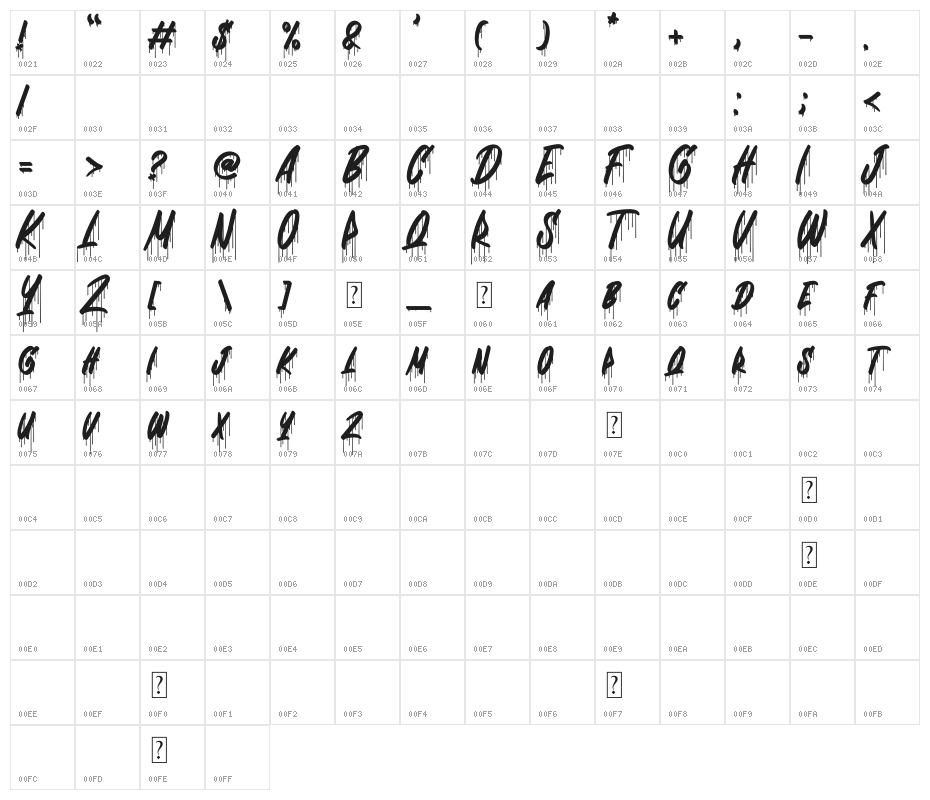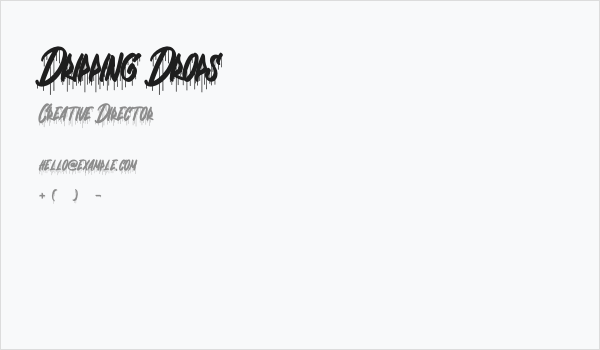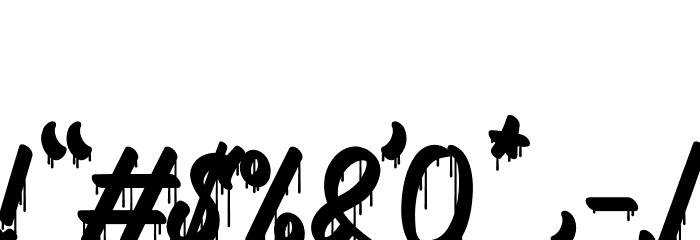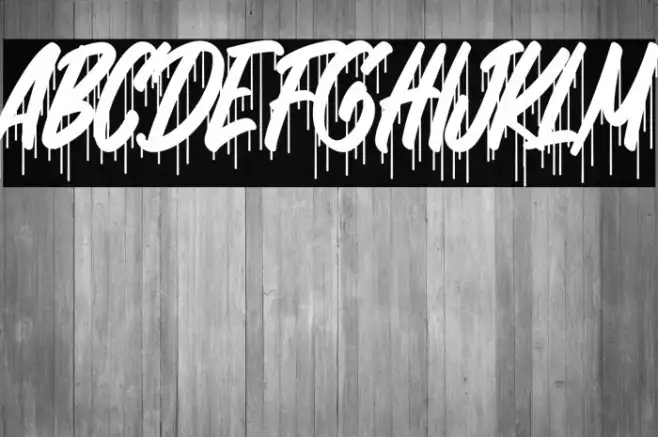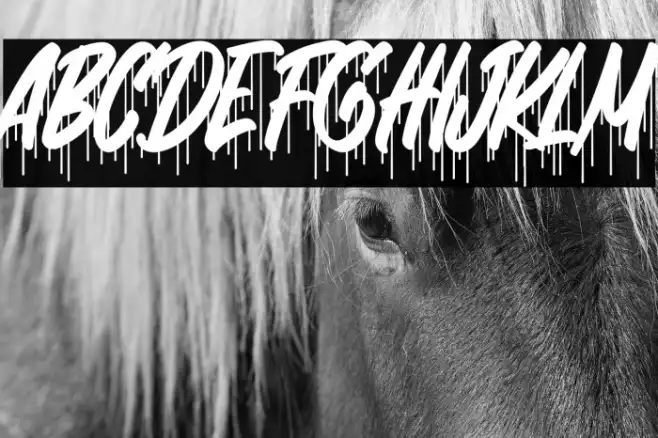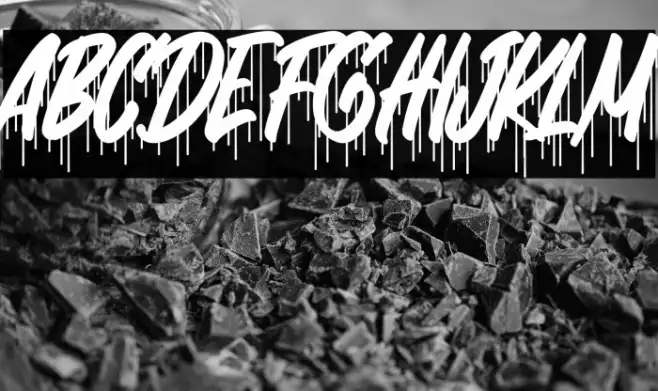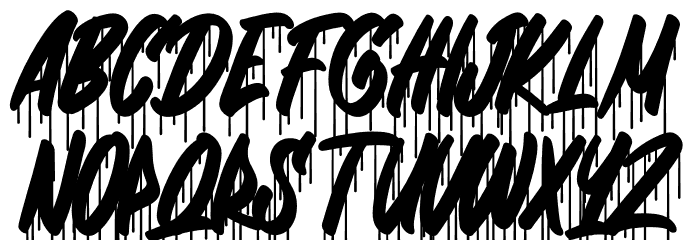
Dripping Drops Font
Dripping Drops Description
This font features a bold, graffiti-inspired style with a dripping effect that gives it a unique, edgy appearance. The letters are designed to mimic the look of wet paint, creating a dynamic and artistic feel. The uppercase and lowercase letters maintain a consistent style, with each character exhibiting a fluid, hand-drawn quality. The special characters, including symbols and punctuation, also follow this dripping motif, adding to the overall cohesive look. This font is perfect for projects that require a bold statement or an urban, street-art vibe.
DRIPPING-DROPS UPPERCASE
DRIPPING-DROPS LOWERCASE
DRIPPING-DROPS OTHER CHARS
| Overall Style | Modern, Urban |
| Proposed Projects | Ideal for street art designs, music album covers, urban-themed posters, and edgy branding projects. |